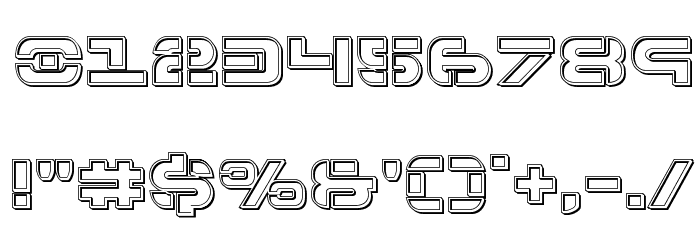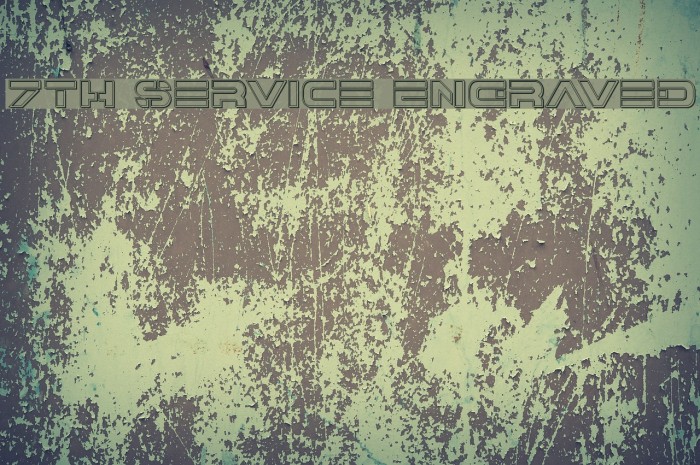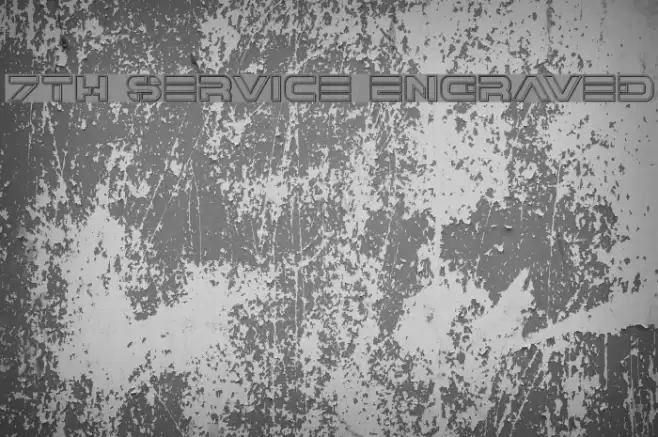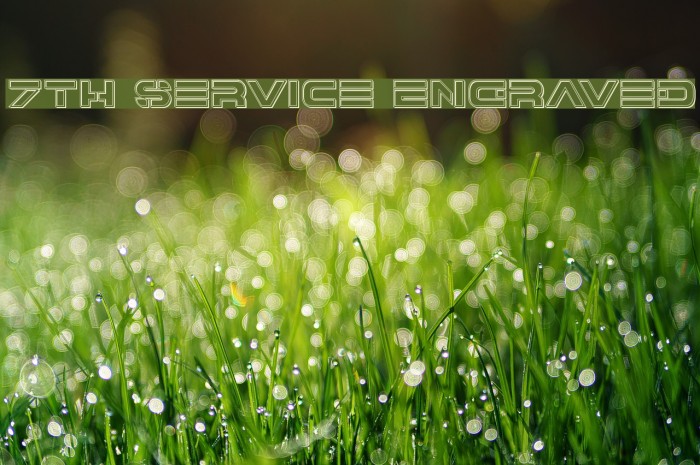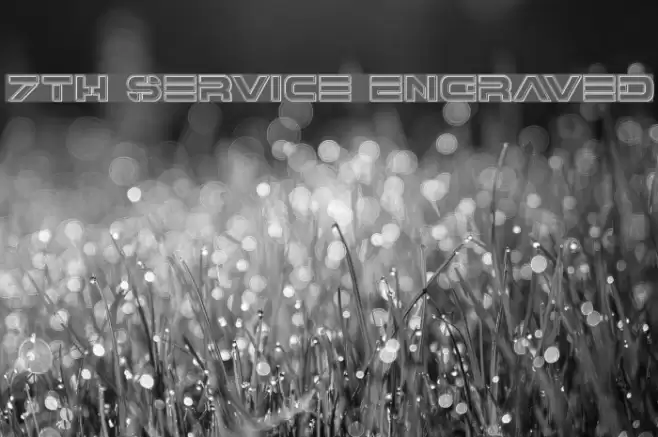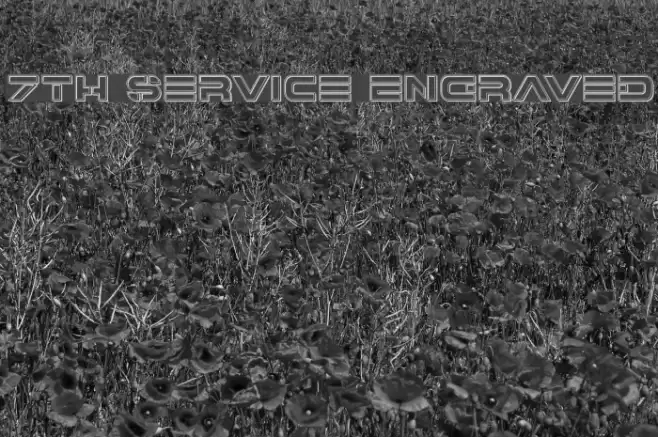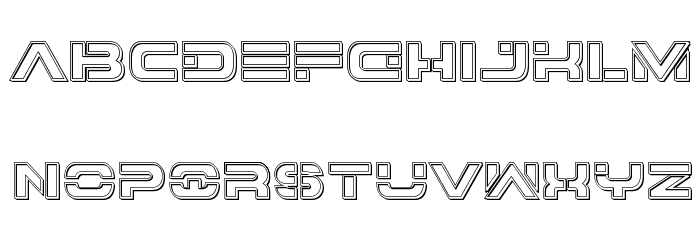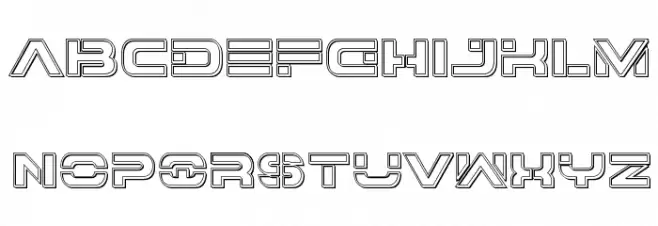
7th Service Engraved Font
7th Service Engraved Description
This font features a bold, geometric design with a futuristic and industrial feel. The characters are constructed with a double-line outline, creating a hollow appearance that adds depth and dimension. The uppercase and lowercase letters maintain a consistent style, with sharp angles and straight lines dominating the design. The numbers and special characters follow the same aesthetic, ensuring a cohesive look across all glyphs. The font's unique structure makes it stand out, ideal for projects that require a modern and edgy touch.
| Overall Style | Futuristic |
| Proposed Projects | Ideal for technology branding, sci-fi themed designs, video game titles, and modern posters. |